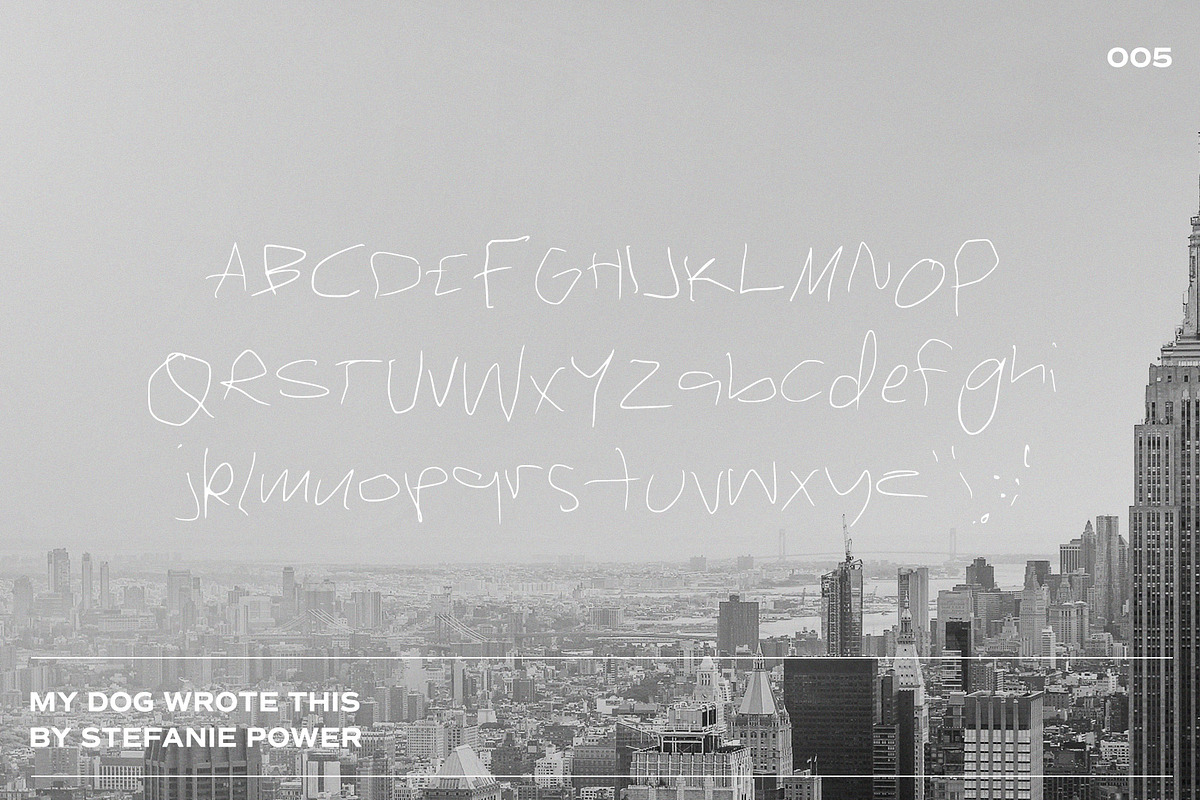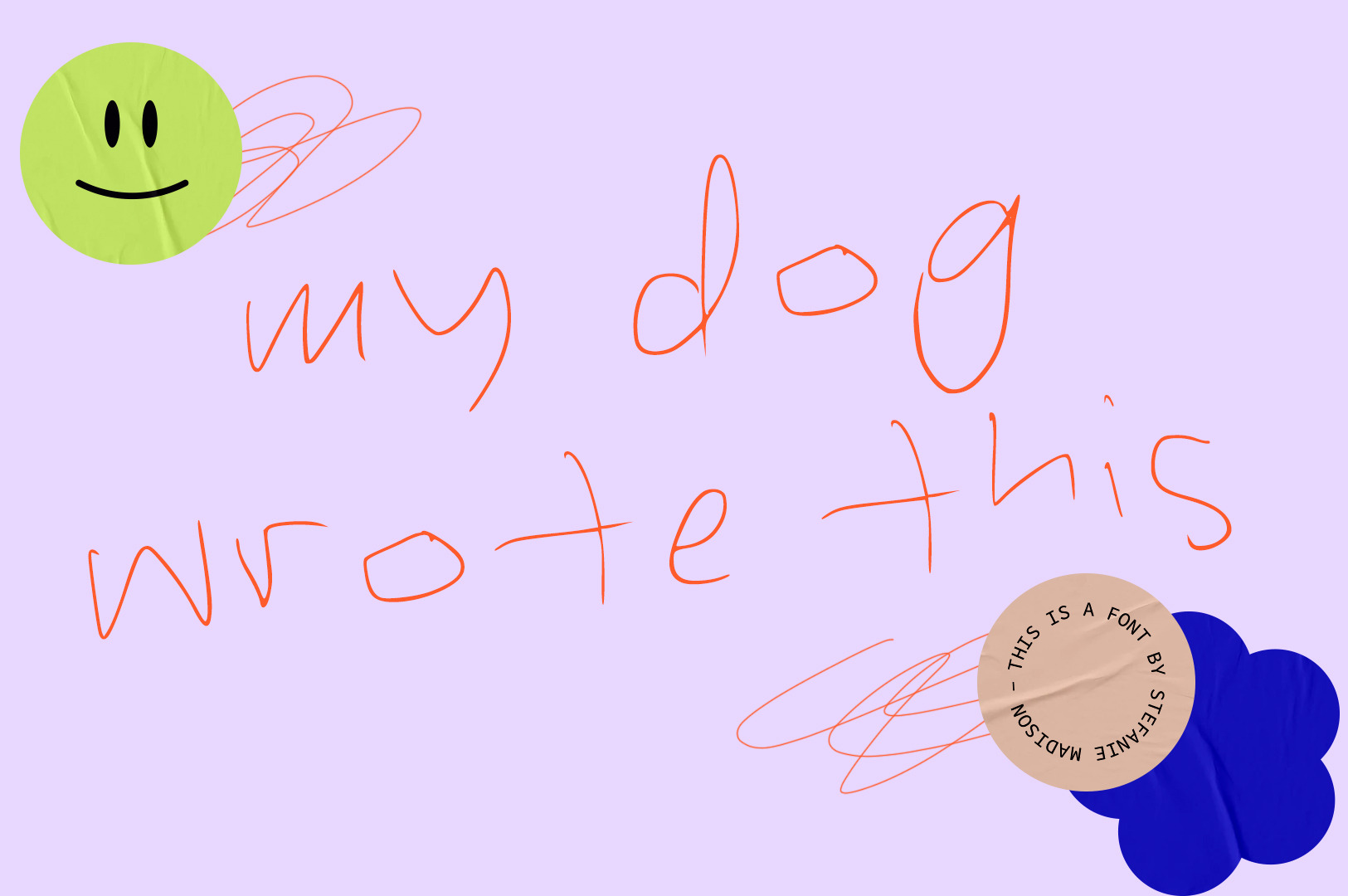
My Dog Wrote This | Handwritten Font
Introducing "My Dog Wrote This", a handwritten font by my dog. This font is perfect for someone who wants a font that looks like a dog's breakfast.